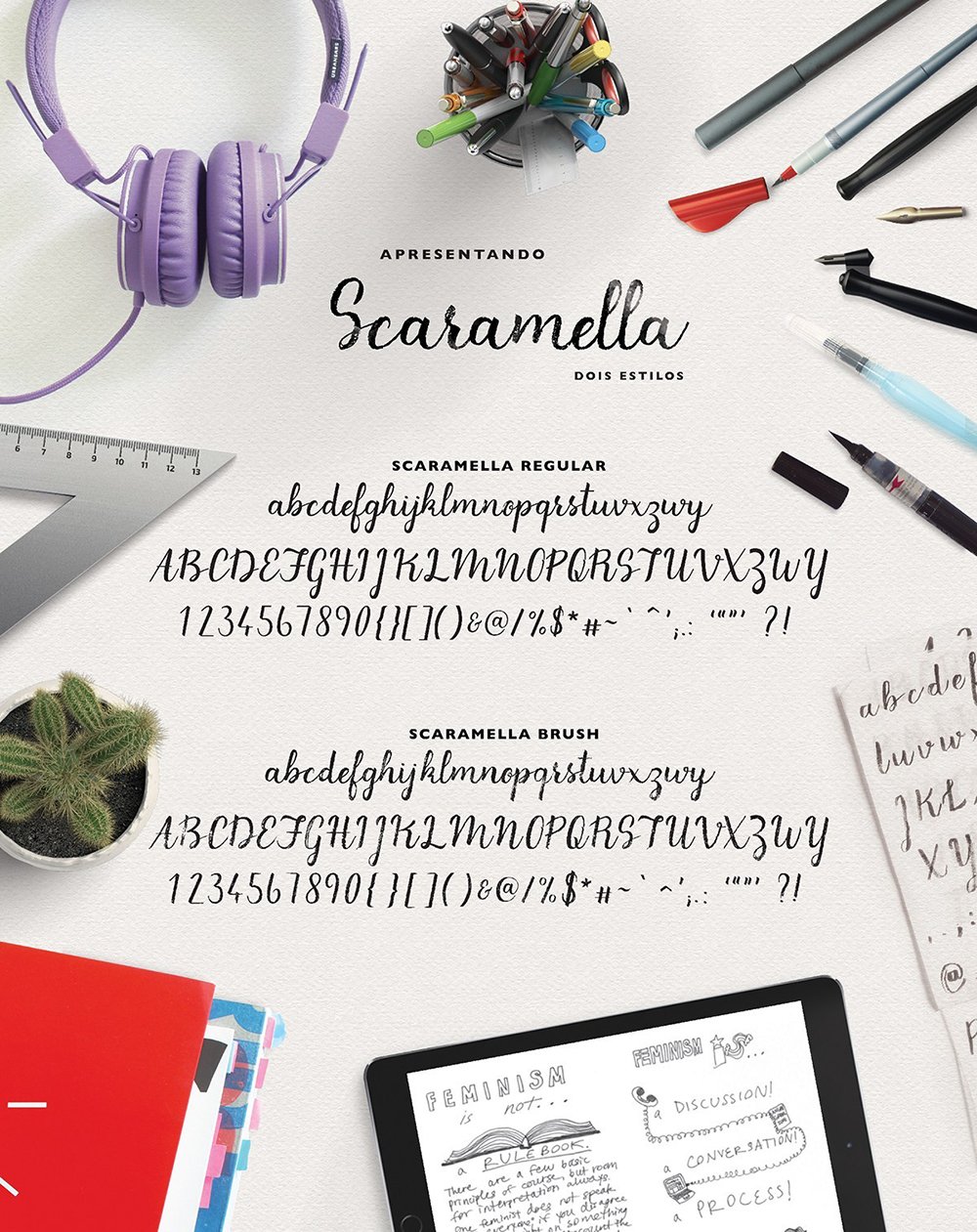
Say hello to this beauty, Scaramella Script Free Font! Coming to you from Camila Scaramella, this script is perfect for you who are looking for some feminine looking font. Additionally, Scaramella Script Free Font was made for the feminist campaigns and to support feminists. Get to know more about this font by clicking here.